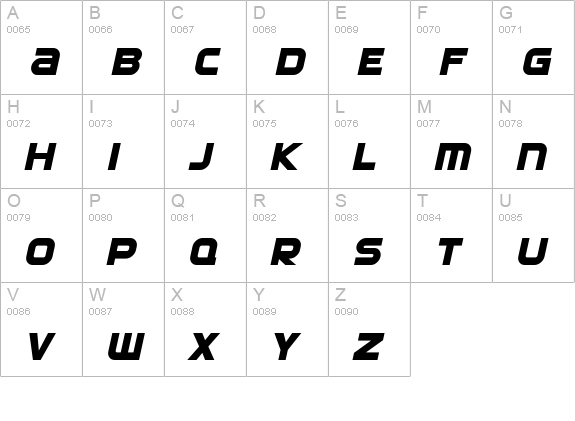
SF Automaton Bold Oblique Font Details
SF Automaton Bold Oblique is a strong, high-contrast, italic variant in the SF typeface family \xE2\x80\x94 well suited to headlines, attention-grabbing titles, and strong calls-to-action.
SF Automaton Bold Oblique is a stunning display font that effortlessly combines futuristic aesthetics with a touch of bold elegance. This font is a perfect choice for those seeking to make a bold statement with their designs, whether it be for a cutting-edge brand, a tech-savvy project, or a dynamic poster. The sleek and edgy design of SF Automaton Bold Oblique is sure to captivate your audience and leave a lasting impression. Its unique combination of sharp angles and bold lines creates a sense of movement and energy, making it ideal for projects that require a modern and dynamic look. With its bold and oblique style, SF Automaton Bold Oblique brings a sense of confidence and assertiveness to any design. Its thick strokes and slanted angles give it a strong and commanding presence, making it perfect for headlines, logos, and eye-catching titles. But what sets SF Automaton Bold Oblique apart from other fonts is that it is not only visually striking, but also freely available to download at FontsMarket.com. This means that you can unleash your creativity without any restrictions or limitations. Whether you're a professional designer or a hobbyist, SF Automaton Bold Oblique allows you to experiment and explore new possibilities, all while adding a touch of sophistication to your work. So why wait? Download SF Automaton Bold Oblique today and let your designs soar to new heights. With its futuristic design, bold elegance, and the freedom to use it as you please, this font is sure to become your go-to choice for all your creative endeavors.